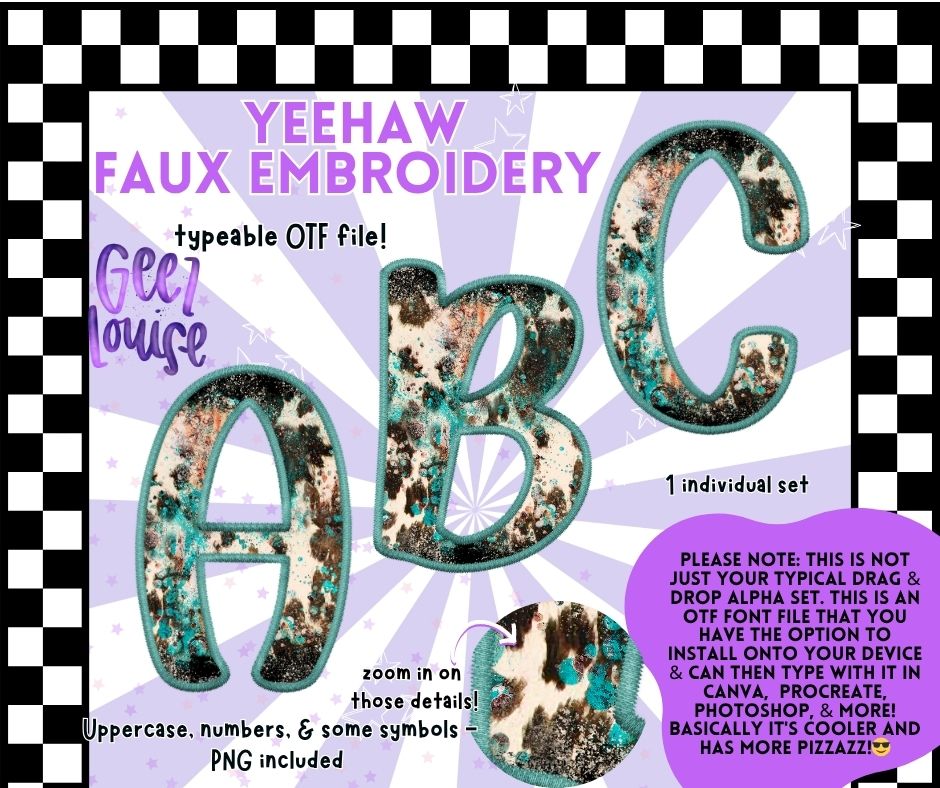
Yeehaw Faux Embroidery Alpha – Western-Inspired OTF Font + PNG
Bring on the bold and rustic charm with the Yeehaw Faux Embroidery Alpha – a western-inspired digital font set that combines cowprint texture, turquoise grunge, and stitched faux embroidery edges. This set includes a fully typeable OTF file as well as individual transparent PNGs.
✔️ Faux stitched embroidery look
Designs with southern sass and dusty vibes just got a serious upgrade.